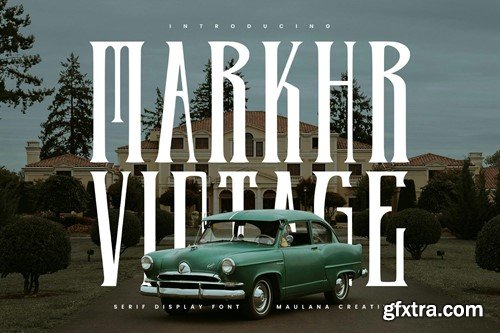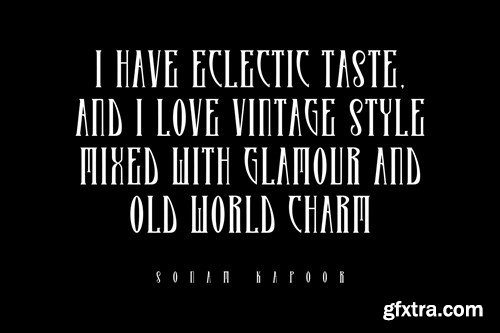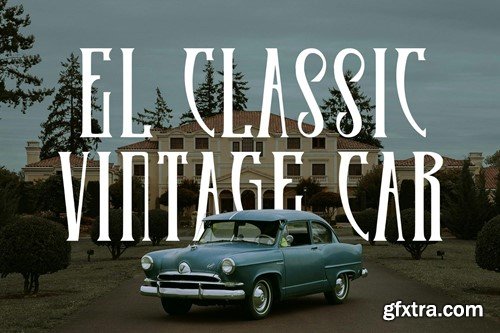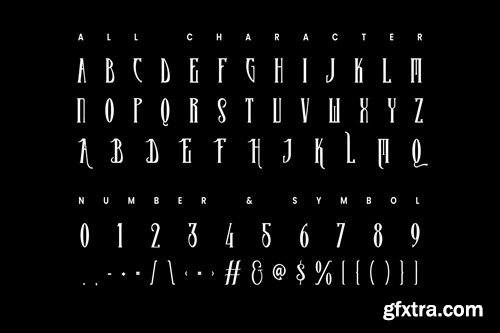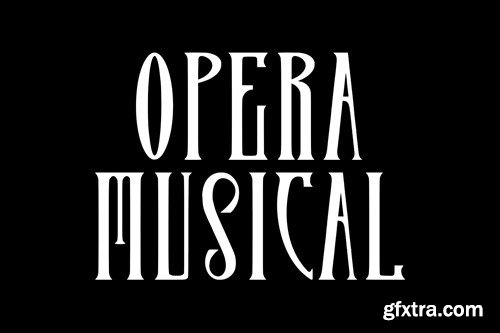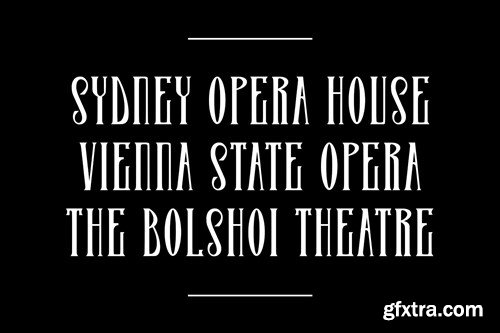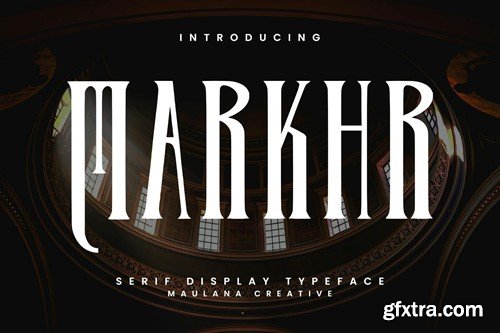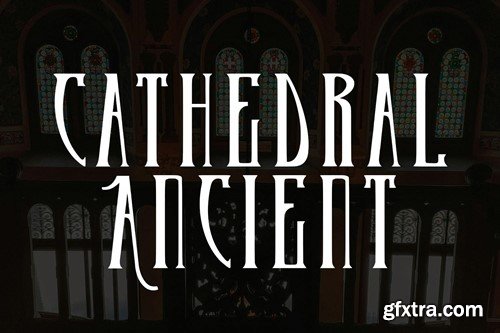
马克赫R Serif古典型衬线字体 RHG9HGQ
Markhr Serif Vintage Display Font
Markhr serif display font. Heavy stroke, fun character with a bit of ligatures. To give you an extra creative work. Markhr serif display font support multilingual more than 100+ language. This font is good for logo design, Social media, Movie Titles, Books Titles, a short text even a long text letter and good for your secondary text font with script or serif. Make a stunning work with Markhr serif display font. What you get: Cheers, Maulana Creative